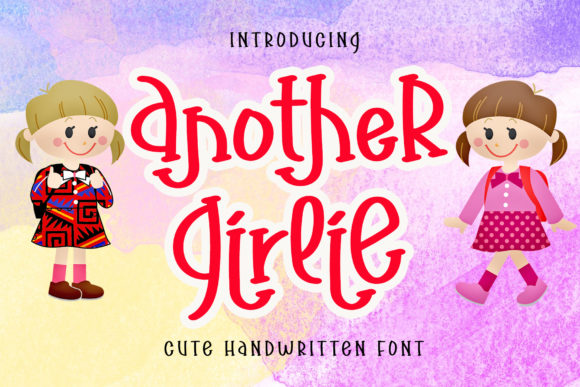
Behold, the whimsical and delightful Another Girlie font - a creation of airotype, designed to capture the essence of childhood dreams and bring joy to every project it adorns. Step into a world of imagination and creativity, where words dance with playful abandon, adding a touch of magic to your creations.
Another Girlie, with its enchanting script style, is a symphony of flowing lines and delicate curves, mirroring the free-spirited nature of kids. Its charming personality shines through in every letter, making it the perfect choice for projects that aim to evoke a sense of wonder and innocence.
Dive into the world of children's books, where Another Girlie flourishes as a storyteller's companion. Watch as your tales take on a new life, captivating young readers with its warm and inviting embrace. Each character, each adventure, each magical moment leaps off the page, painted in the vibrant hues of this enchanting font.
Beyond the realm of books, Another Girlie dances its way into the hearts of crafters, adding a touch of whimsical charm to handmade cards, invitations, and personalized gifts. Its versatility knows no bounds, flowing effortlessly across a multitude of surfaces, from paper to fabric, from wood to glass.
Unleash your inner child and embark on a creative journey with Another Girlie. Allow its playful spirit to ignite your imagination, transforming ordinary projects into extraordinary expressions of joy. With this font as your ally, you'll be amazed at how easily you can create designs that spark smiles, capture hearts, and leave a lasting impression.